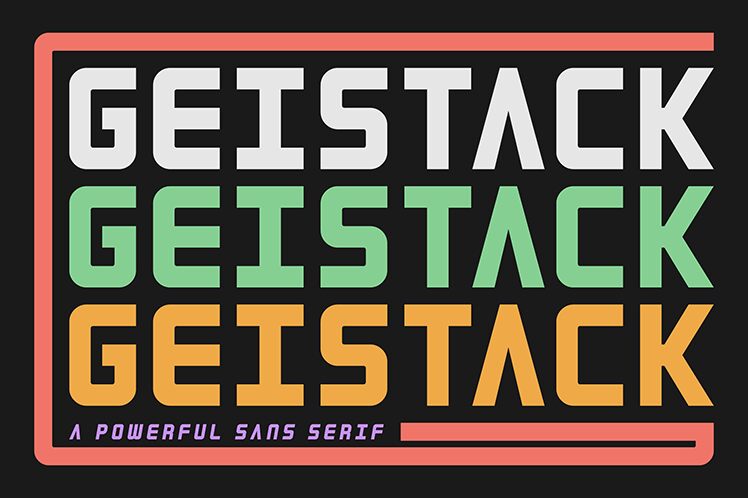
Geistack
Geistack font by Shanaya Studio is a free techno display font that combines modern and geometric features with strong presence and clean lines. With its minimalistic aesthetics and industrial feel, the typeface has the potential to transform any creation in which it’s featured.